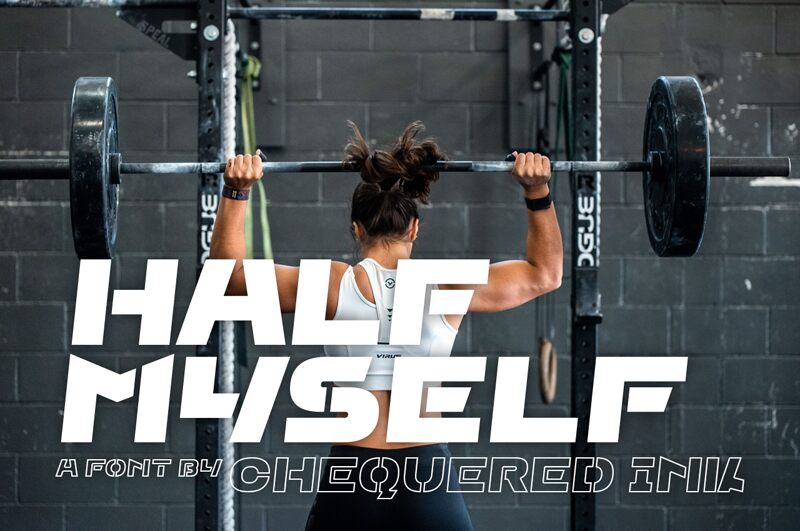
Half Myself font by Chequered Ink is a free bold stencil display font. Built around angular, forward-leaning shapes, it slices each form with sharp stencil breaks that feel like quick knife cuts. The result is punchy and kinetic-thick strokes, tight joins, and slashed counters that read fast and hit hard without losing legibility.
Using Half Myself, headlines snap with a gritty, futuristic edge that shines on esports branding, sci‑fi posters, action trailers, game UI headers, tech packaging, and streetwear tags. This free font loves big sizes and short words; add a touch of tracking to amplify the speed. For supporting text, pair it with a clean grotesque sans to keep the message grounded.
Half Myself
Half Myself by Chequered Ink.